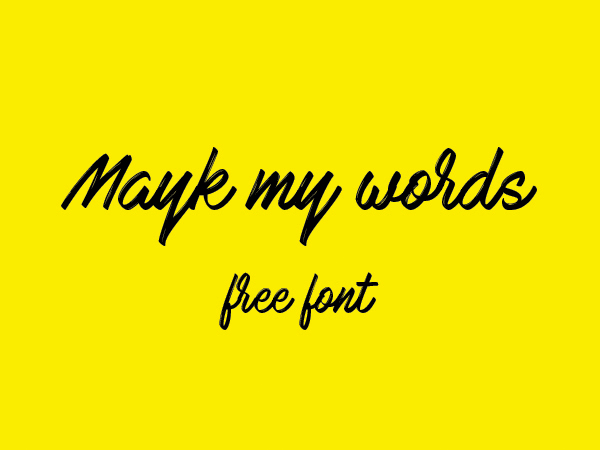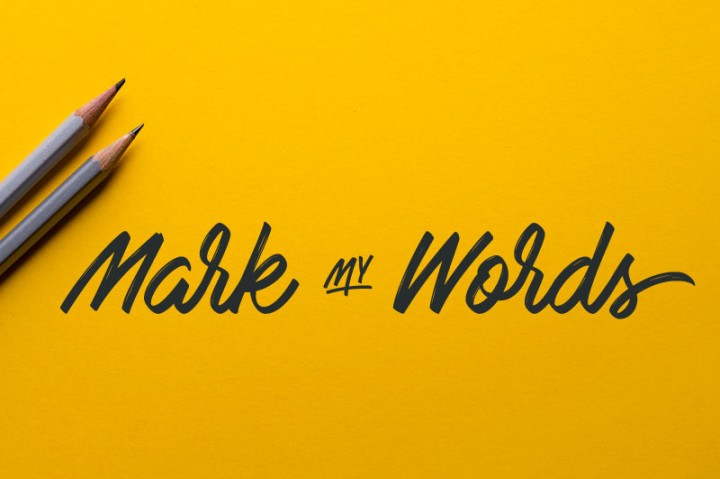
Mark My Words Font
Mark My Words Font is one of the top rated typefaces within the google fonts. This is a stereo typeface that is similar to the new romantics font. Now, the terrific’s manufacturers took the all proper reserved for this commercial enterprise company. Its headquarter positioned downtown, north.
On equal time. Because of the reality, quite some portions of designers from the excellent style of the fields whiling to artwork together with that learning curve bv font and create a few new designs for advertising and designing. Mark My Words Font Free At the same time as you furthermore are taken into concept one, in reality, all and sundry in every virtually considered one in virtually all them then you definately are possibly inside the right scenario. It has availably pinnacle-notch in a big type however this type has many sorts of wild youth font.
In addition broadening of the font circle of relatives. This font is likewise called a hammered font that is used inside the google fonts.